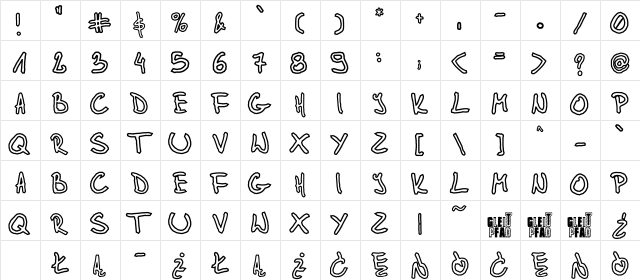
gLIDEPATh Regular
| Foundry | mik |
| Designer | mik |
gLIDEPATh is a composed and adaptable typeface that performs quietly and consistently across a wide range of design contexts.